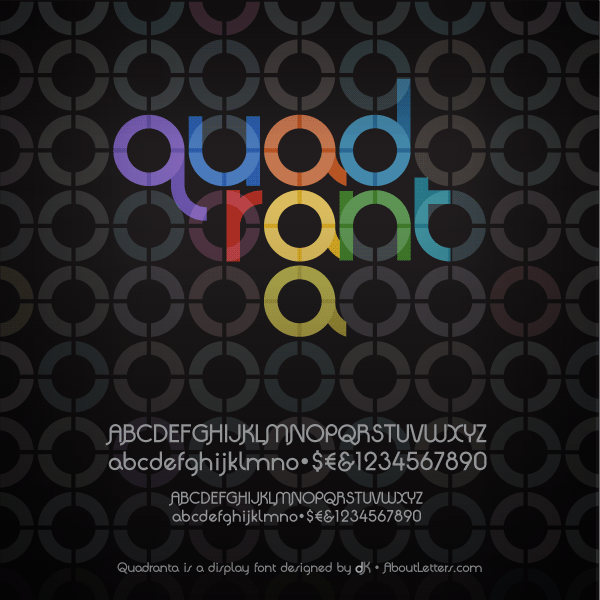
The initial design was started with quadrant arcs. That is how this font got the name. Quadranta is a display font. It's great for logo and title designs. Quadranta is a free font for most commercial uses. However, it is not allowed to embed the font software in applications or websites. Please read the included EULA for more information. If you have further questions, please contact the author at info@aboutletters.com. Thank you for downloading Quadranta. Happy font hunting! |